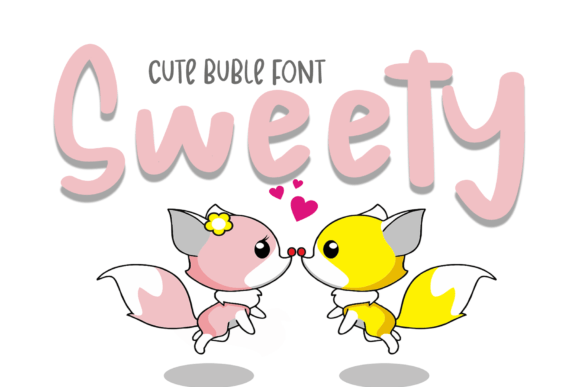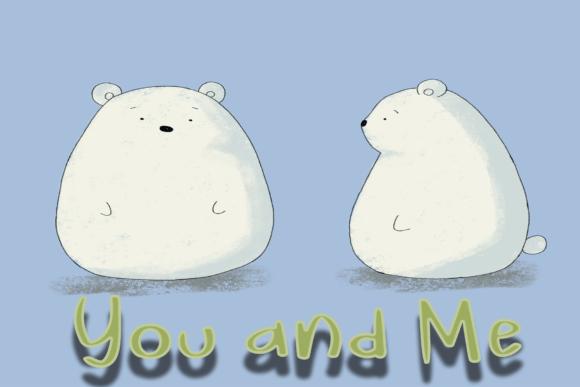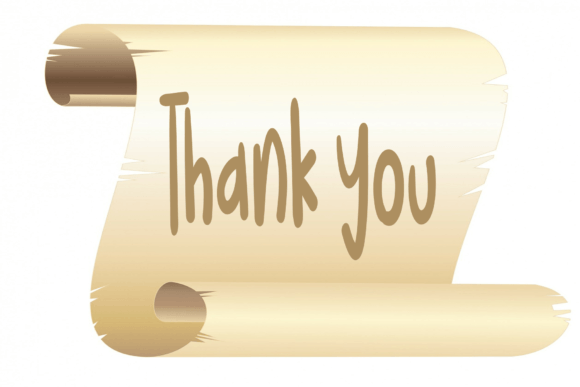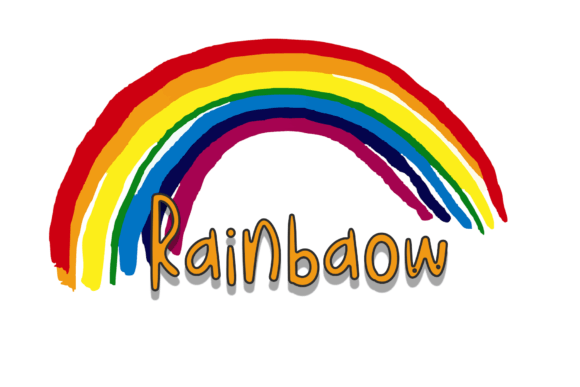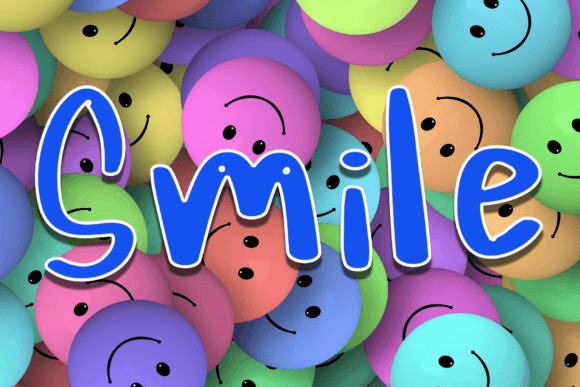
Sweety Font
About Sweety Font
Sweety is a simple and casual display font with an undeniably clean feel. With its neat and beautiful arrangement of letters, this typeface will look outstanding in both formal and non-formal designs.